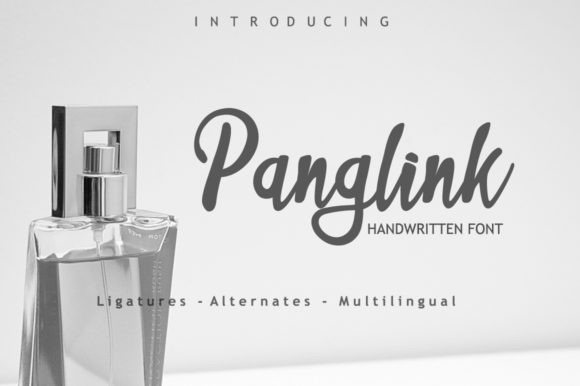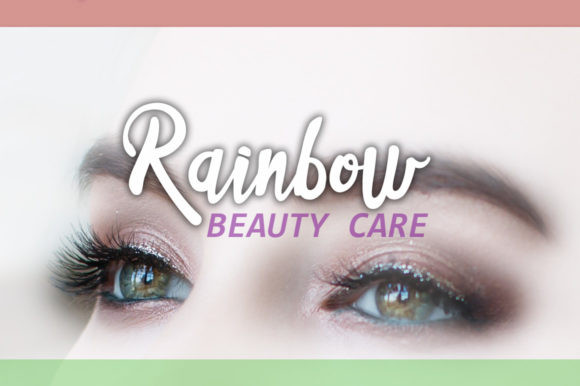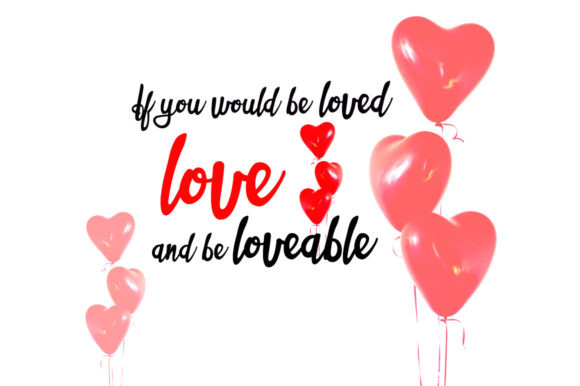
Panglink Font
Panglink is a bold handwritten font, carefully handcrafted to become a true favorite. This enchanting font will turn any creative idea into a true standout.